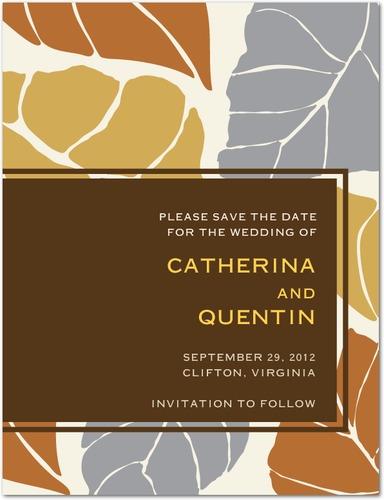
Take a look at what I found here:
It's not an exact match, but it's pretty close.
I used Copperplate for most of the invitation and I think it looks really similar to your font.
I did our names in Scriptina, but I thought the two fonts paired really well, so I think using something like that on your envelopes would be lovely. I just had to adjust the spacing between the letters on Scriptina because they tended to be harder to read closer together.
We did do the envelopes in Copperplate, but I think either way would be great.
@subbywife11: That's so weird cause I just downloaded Scriptina Pro and was testing it out on an envelope. I think it is a lovely font. Thank you!
maybe you could use a futura for the envelope? I definitely wouldn't use a script, idk that's just my opinion.
I'm in the process of ordering my STDs and invitations from an online store. The ones we picked are fun and modern and uses the font Hero Roman (which I cannot find anywhere). See sample:
I want to print the addresses on the envelopes myself but would it be weird to use a script font on the envelope? Or would it be too informal to use Hero Roman on the envelope? If anyone can find a similar font, I'd be grateful.